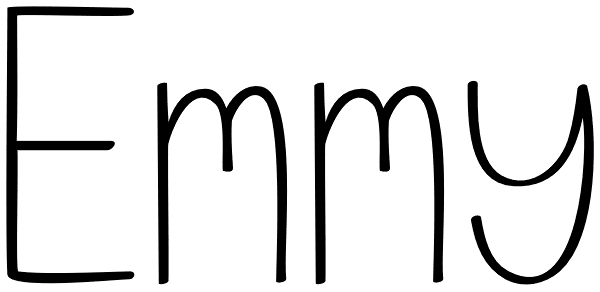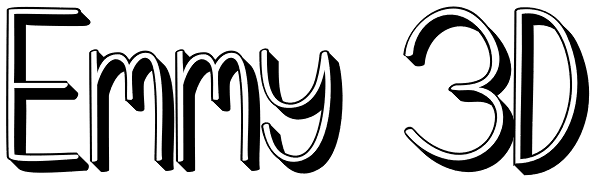
Emmy
Emmy is the second family from this up and coming foundry. A versatile font, Emmy has many different styles to suit your needs. Easy to read and fun to use...it's perfect for a children's book, logo or other cool design project!